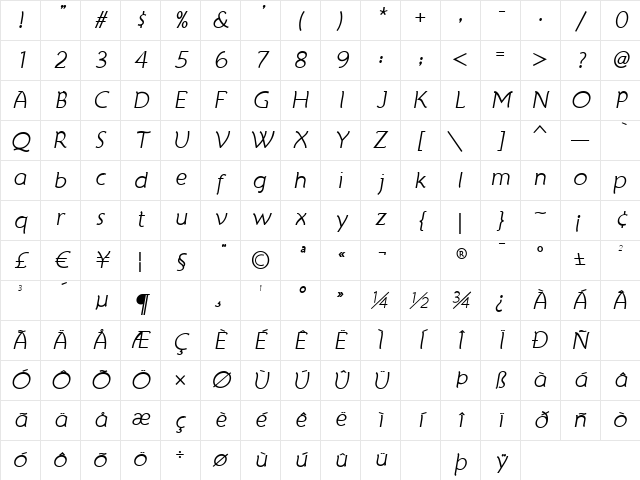
Atelier Sans Book Italic Itc Regular
Design Context for Atelier Sans Book Italic Itc
Atelier Sans Book Italic Itc is a composed and adaptable typeface that performs quietly and consistently across a wide range of design contexts. The slanted form adds forward momentum and visual energy.
Pro Tip: Use Atelier Sans Book Italic Itc for emphasis, pull quotes, and subheadings where its slanted energy can add rhythm to the layout.